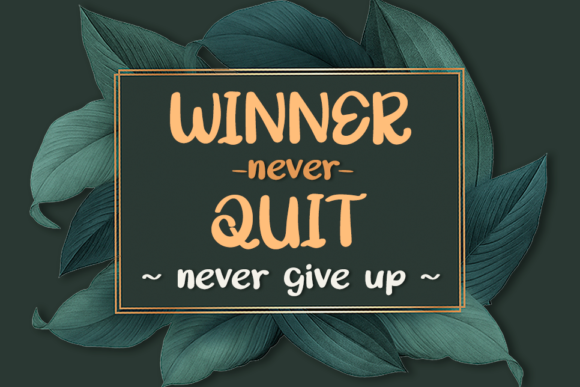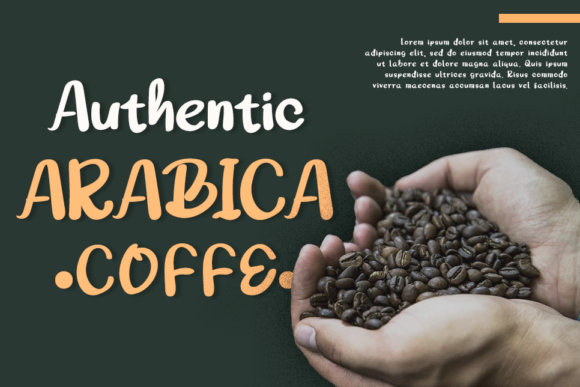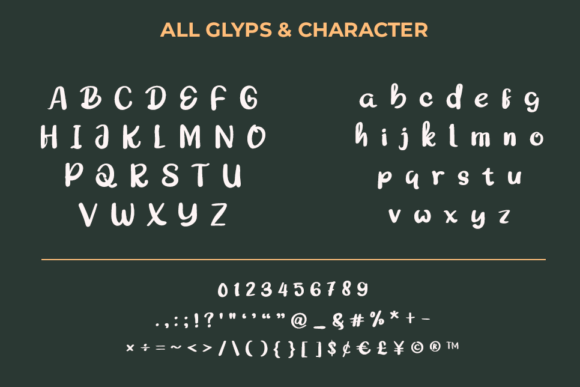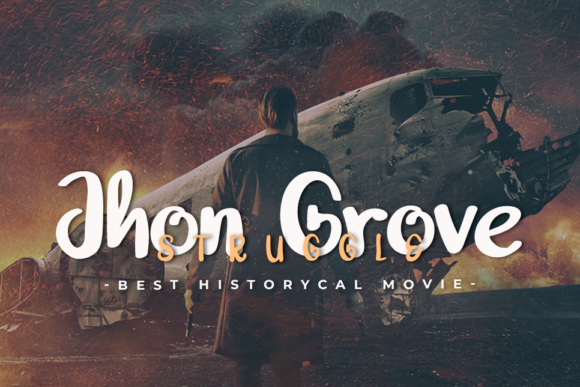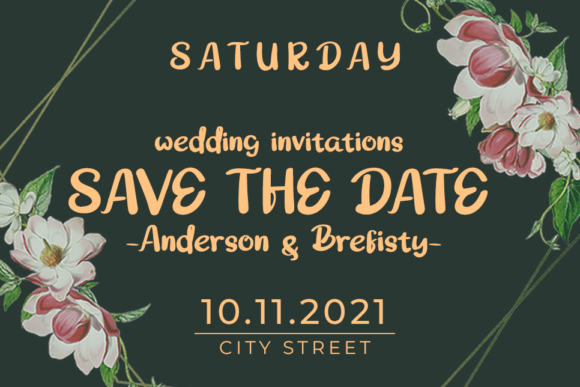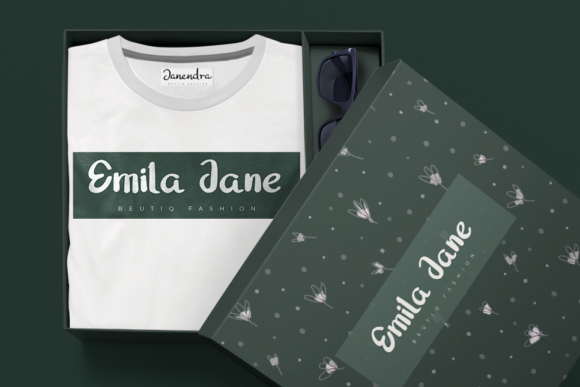
Introduction to Shorter Font
There’s nothing quite like the rush of inspiration that hits when you’re working on a creative project. The idea sparks, the imagination runs wild, and suddenly you’re envisioning a design that’s both unique and captivating. For designers, this moment is what makes all the hard work worth it. But what happens when you need a font that can bring your vision to life? Enter the Shorter Font, a bold handwritten font that’s been carefully handcrafted to become a true favorite.
With its casual charm and down-to-earth feel, the Shorter Font is the perfect design resource for any creative project. Whether you’re working on a logo, a poster, or a social media campaign, this font is sure to make your design stand out. And with its high quality and versatility, it’s no wonder that designers are turning to the Shorter Font for their next big project.
Key Features of Shorter Font
- High Quality Design: Shorter Font is a carefully crafted, high-quality design resource perfect for creative projects.
- Unique Characteristics: Shorter Font boasts a distinctive, modern design aesthetic that sets it apart from other fonts.
- Perfect for Digital Design: This font is ideal for digital design projects, including web design, mobile app design, and graphic design.
Honest Review: Shorter Font
As a designer, I’m always on the lookout for high-quality design resources that can elevate my creative project. Recently, I stumbled upon the Shorter Font, and I have to say, it’s been a game-changer.
- ✨ The font is super versatile and can be used in a variety of creative projects, from branding to editorial design.
- ✨ The transparent background makes it easy to overlay on images or videos, giving a clean and minimalist look.
However, I do have a few gripes:
- ⚠️ The font might be a bit too bold for some designs, so be mindful of the typography hierarchy.
- ⚠️ The font is limited in terms of customization options, so you might need to get creative with layering or combining fonts.
Overall, I’m really impressed with the Shorter Font. It’s a high-quality design resource that’s perfect for designers looking to add a touch of elegance to their creative project. With a bit of caution and creativity, this font can be a fantastic addition to your design toolkit.